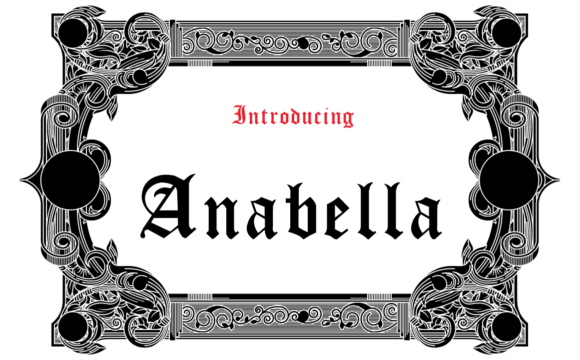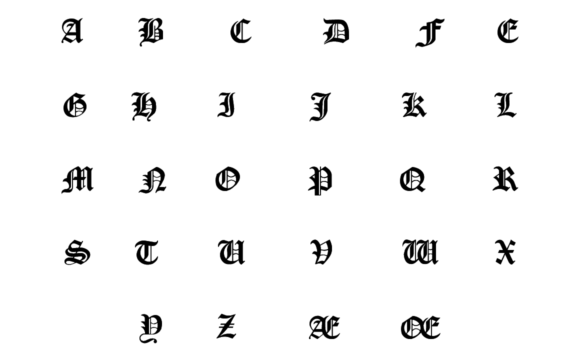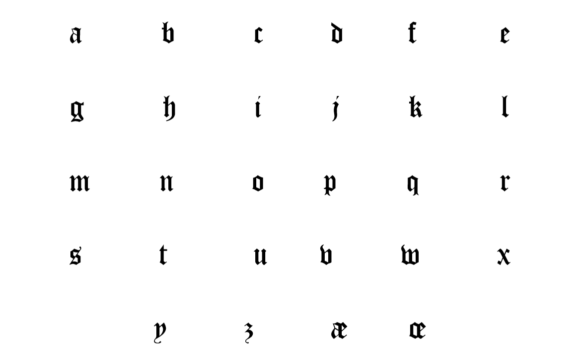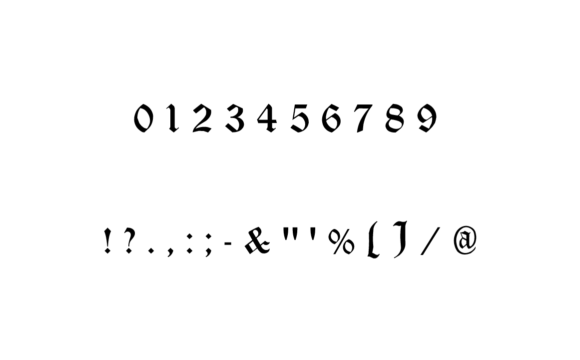
Anabella Font: Unique Blackletter Typography for Logos & Branding
About the Anabella Font
The Anabella Font is here to transform your projects with its distinctive character and style. Anabella is a beautiful blackletter Gothic font, great for print or branding projects. This font can add tons of nuance and style to your work, and excels in displays and logotype.
Anabella’s strong vertical strokes and intricate details make it ideal for headlines, logos, and short, impactful statements in branding materials or posters. Its ornate nature, however, makes it less suitable for body text or UI elements where readability is paramount; long blocks of Anabella would be visually overwhelming and difficult to read.
The font’s personality is bold and sophisticated, lending itself to projects requiring a touch of historical elegance or even a slightly gothic aesthetic. Brands seeking to convey luxury, tradition, or a sense of mystery would find Anabella highly effective.
For effective pairings, consider a clean, modern sans-serif like Open Sans or Lato to provide contrast and enhance readability when used alongside Anabella in a design. Alternatively, a classic serif like Garamond or a simpler geometric sans-serif could create a harmonious balance depending on the desired level of formality.
Anabella Font Usage Examples
Anabella Font Example